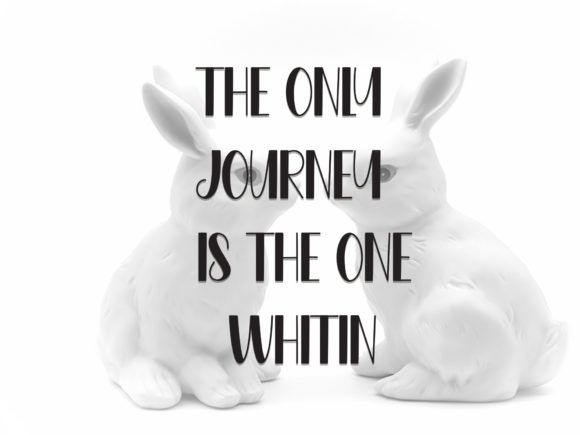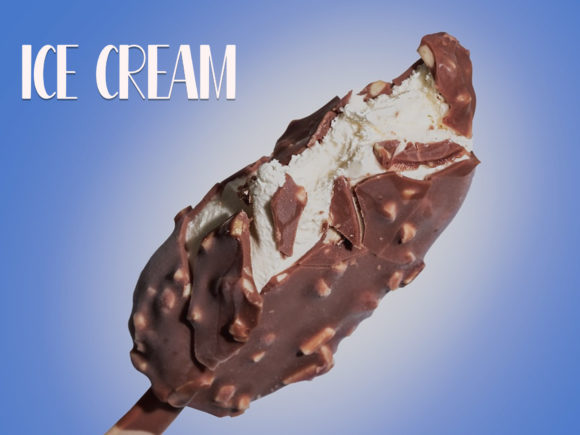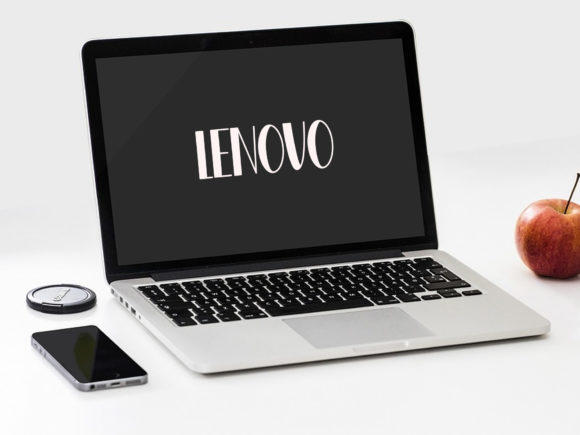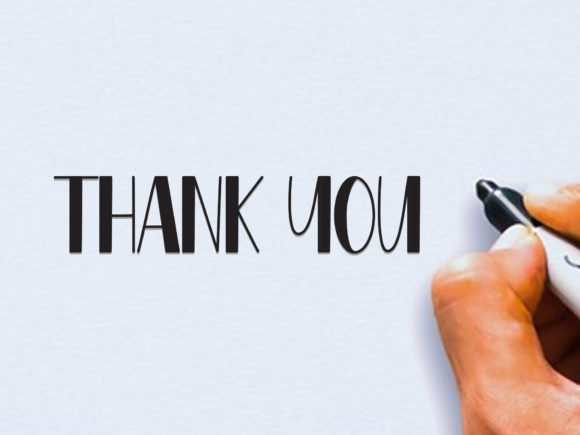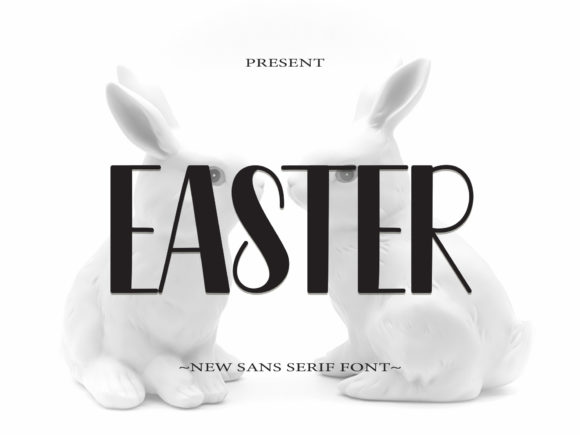
EASTER Font: A Unique Handwritten Style for Your Creative Projects
EASTER is a distinctive handwritten font that has been carefully crafted to bring a touch of personality and charm to your designs. With its unique style and versatility, this font is perfect for a wide range of creative projects, from titles and invitations to letters and other types of products.
The Story Behind EASTER Font
The EASTER font was designed with great care to produce a truly unique and eye-catching style. The creator of this font wanted to produce a typeface that would stand out from the crowd and provide designers with a fresh alternative to traditional fonts. With its flowing lines and whimsical feel, EASTER is sure to capture the attention of your audience and leave a lasting impression.
Key Features of EASTER Font
So, what makes EASTER font so special? Here are just a few of its key features:
- Unique Handwritten Style: EASTER font has a distinctive handwritten style that sets it apart from other fonts. Its flowing lines and curves give it a personal and friendly feel that’s perfect for a wide range of designs.
- Versatile: Whether you’re creating titles, invitations, letters, or other types of products, EASTER font is the perfect choice. Its versatility makes it easy to use in a variety of contexts.
- Easily Readable: Despite its unique style, EASTER font is still easily readable, making it perfect for use in body text as well as headings.
Uses for EASTER Font
EASTER font is perfect for a wide range of creative projects, including:
- Titles and Headings: Add a touch of personality to your titles and headings with EASTER font. Its unique style is sure to capture the attention of your audience.
- Invitations: Whether you’re creating invitations for a party, wedding, or other special event, EASTER font is the perfect choice. Its whimsical feel and personal style make it perfect for creating memorable invitations.
- Letters and Correspondence: Add a touch of personality to your letters and correspondence with EASTER font. Its flowing lines and curves make it perfect for creating personal and friendly letters.
- Crafting and DIY Projects: EASTER font is also perfect for crafters and DIY enthusiasts. Use it to add a personal touch to your projects, from scrapbooking to card making.
Tips for Using EASTER Font
Here are a few tips for getting the most out of EASTER font:
- Experiment with Different Sizes: EASTER font looks great in a variety of sizes, from large headings to smaller body text. Experiment with different sizes to find the one that works best for your project.
- Pair with Other Fonts: EASTER font pairs well with a variety of other fonts. Try pairing it with a bold font for headings or a clean font for body text.
- Use in Combination with Images: EASTER font looks great in combination with images. Try using it to add a personal touch to your photos or illustrations.
EASTER font is a unique and versatile typeface that’s perfect for a wide range of creative projects. With its distinctive handwritten style and whimsical feel, it’s sure to capture the attention of your audience and leave a lasting impression. Whether you’re a designer, crafter, or DIY enthusiast, EASTER font is a great choice for adding a personal touch to your projects.
- What is EASTER font?: EASTER font is a unique handwritten typeface that’s perfect for a wide range of creative projects.